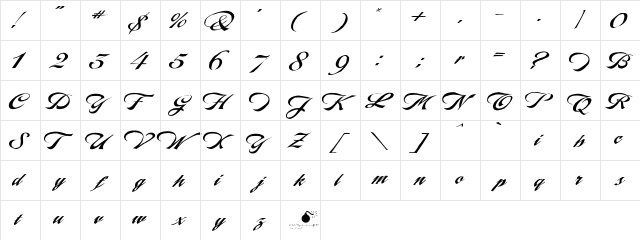
LHF Marie Script Regular Regular
| Foundry | Dave Correll for Letterhead Fonts |
| Designer | Dave Correll |
Design Context for LHF Marie Script Regular Typeface
LHF Marie Script Regular brings a calligraphic fluidity to the page — its connecting strokes and expressive curves give it an unmistakably human quality.
Font Pairing: Combine LHF Marie Script Regular with a simple geometric sans for maximum contrast — the tension between flowing curves and clean structure is a classic typographic pairing.
Pro Tip: Use LHF Marie Script Regular for short runs of text — names, titles, or taglines. Extended body copy in script faces tires the eye quickly.